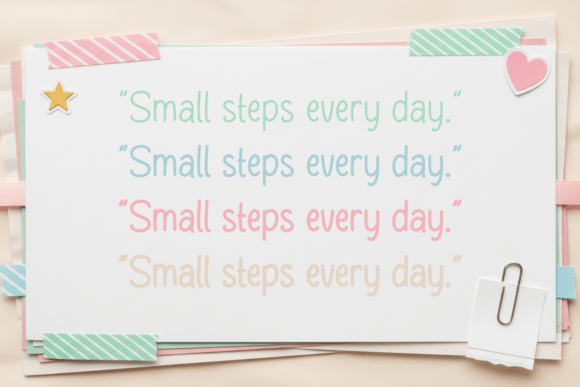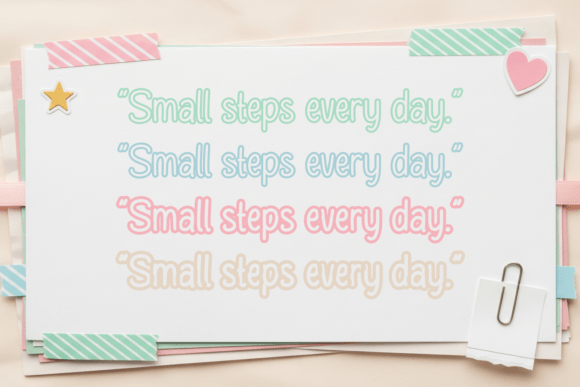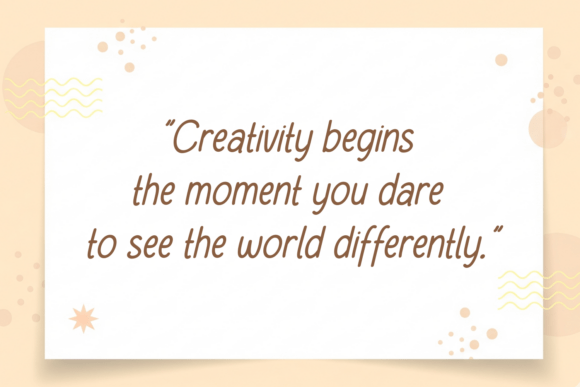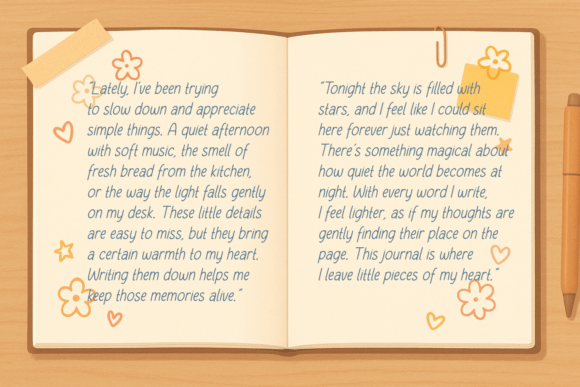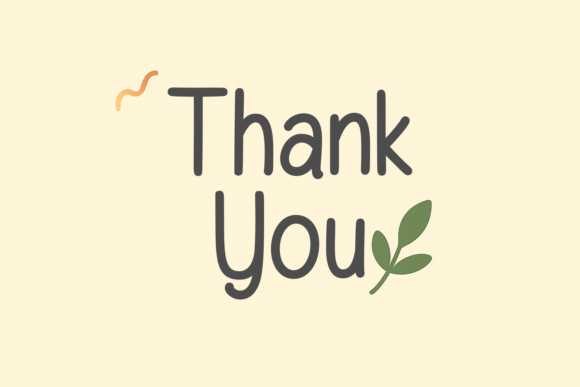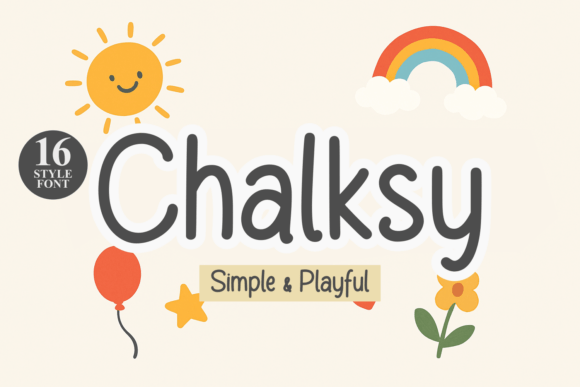
Introducing Chalksy Font: The Ultimate Choice for Fun and Playful Designs
Are you looking for a font that can add a touch of joy and playfulness to your designs? Look no further than Chalksy Font! This cheerful, simple, and playful font is perfect for designers and crafters who want to bring a fun vibe to their creative projects. With its 16 different styles, Chalksy is highly versatile and can be used for a wide range of applications, from kids’ themes to branding, posters, birthday invitations, and digital crafts.
The Characteristics of Chalksy Font
Chalksy Font is characterized by its rounded and friendly characters, which give it a warm and approachable feel. The font’s casual and joyful vibe makes it perfect for designs that require a playful touch. Whether you’re creating a poster for a kids’ event, a birthday invitation, or a motivational quote, Chalksy Font is sure to add a happy and uplifting feel to your design.
Uses of Chalksy Font
Chalksy Font is highly versatile and can be used for a wide range of creative projects, including:
- Kids’ themes: Chalksy Font is perfect for designing kids’ themes, such as nursery decor, kids’ party invitations, and educational materials.
- Branding: The font’s playful and cheerful vibe makes it ideal for branding projects that require a fun and approachable feel.
- Posters: Chalksy Font is great for creating eye-catching posters for kids’ events, concerts, and festivals.
- Birthday invitations: The font’s friendly and playful characters make it perfect for designing birthday invitations that are sure to delight kids and adults alike.
- Motivational quotes: Chalksy Font is also great for creating motivational quotes that inspire and uplift.
- Digital crafts: The font’s versatility makes it perfect for digital crafts, such as printable art, planners, and journals.
Designing with Chalksy Font
Chalksy Font pairs beautifully with cute illustrations, bright colors, and other creative elements. Here are some design tips to help you get the most out of Chalksy Font:
- Combine Chalksy Font with cute illustrations: The font’s playful vibe makes it perfect for pairing with cute illustrations, such as cartoon characters, animals, and objects.
- Use bright colors: Chalksy Font looks great with bright and bold colors, which can add a fun and playful touch to your design.
- Experiment with different styles: Chalksy Font comes in 16 different styles, so don’t be afraid to experiment and find the one that works best for your design.
Why Choose Chalksy Font?
So why choose Chalksy Font for your next design project? Here are just a few reasons:
- Unique and playful vibe: Chalksy Font has a unique and playful vibe that sets it apart from other fonts.
- Highly versatile: The font’s 16 different styles make it highly versatile and suitable for a wide range of creative projects.
- Easy to read: Chalksy Font is easy to read, even at small sizes, making it perfect for digital and print designs.
- Supports multiple languages: The font supports multiple languages, making it a great choice for designers who work with international clients.
In conclusion, Chalksy Font is a cheerful, simple, and playful font that is perfect for designers and crafters who want to add a fun vibe to their creative projects. With its 16 different styles, rounded and friendly characters, and casual and joyful feel, Chalksy Font is highly versatile and can be used for a wide range of applications. Whether you’re designing a kids’ theme, a poster, or a digital craft, Chalksy Font is sure to bring a warm and happy touch to your design.